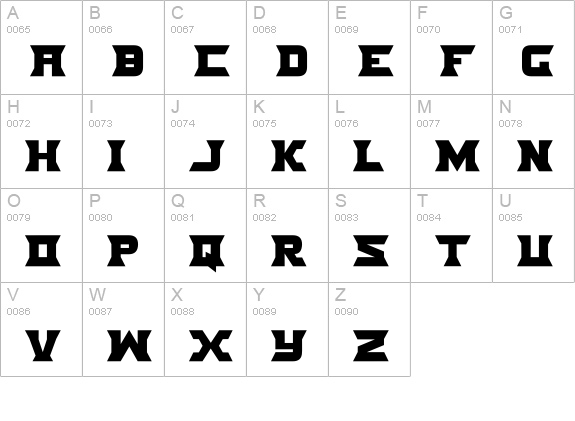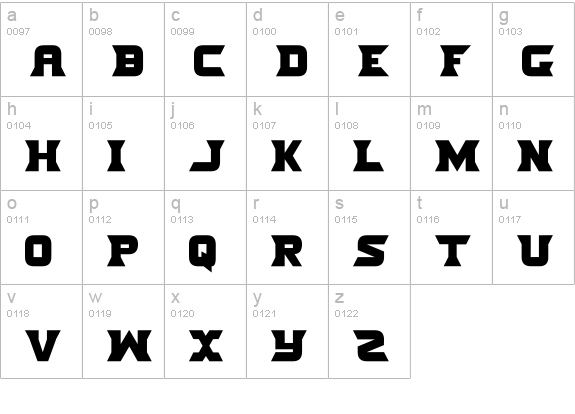
Nife Fiter Font Details
Nife Fiter font is a stunning display typeface that combines elegance with a touch of modernity. Its sleek lines and unique letterforms make it perfect for various design projects, from branding to editorial design. This versatile font exudes sophistication and style, making it a must-have for any designer looking to make a statement. What's even better is that Nife Fiter font is available for free download at FontsMarket.com. This means you can easily add this beautiful font to your collection without breaking the bank. Whether you're a seasoned designer or just starting out, Nife Fiter font is sure to elevate your projects and bring them to the next level. Don't miss out on this fantastic opportunity to enhance your designs with this stunning font - download it for free today!